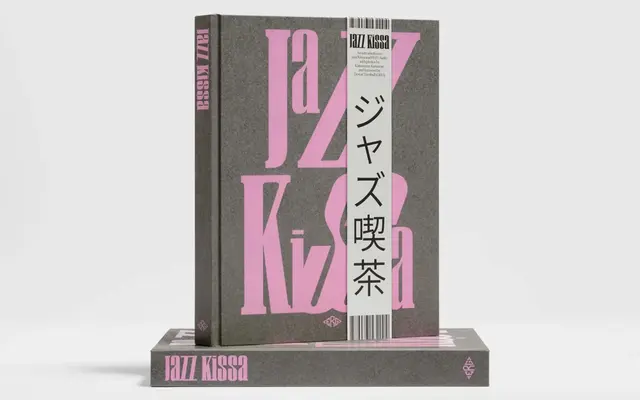
Craft
Writtenshape · Benoît Brun & Raphaël de La Morinerie
A monocase display typeface inspired by ancient wooden titling characters, where all glyphs sit within the x-height and link together to form continuous words.
Designed by Benoît Brun and Raphaël de La Morinerie, it draws on the heritage of wood type while departing from conventional letterform construction: every glyph is contained within the x-height and connects seamlessly to its neighbours. Accents extend above the x-height and below the baseline to preserve readability without disrupting the monocase logic. Available in two styles, upright and italic, with OpenType options to customise the connecting behaviour.
Craft is a display typeface inspired by ancient wooden titling characters, with a monocase construction where all glyphs are contained within the x-height and connect to one another, placing it firmly in the display category with a rustic, experimental character.